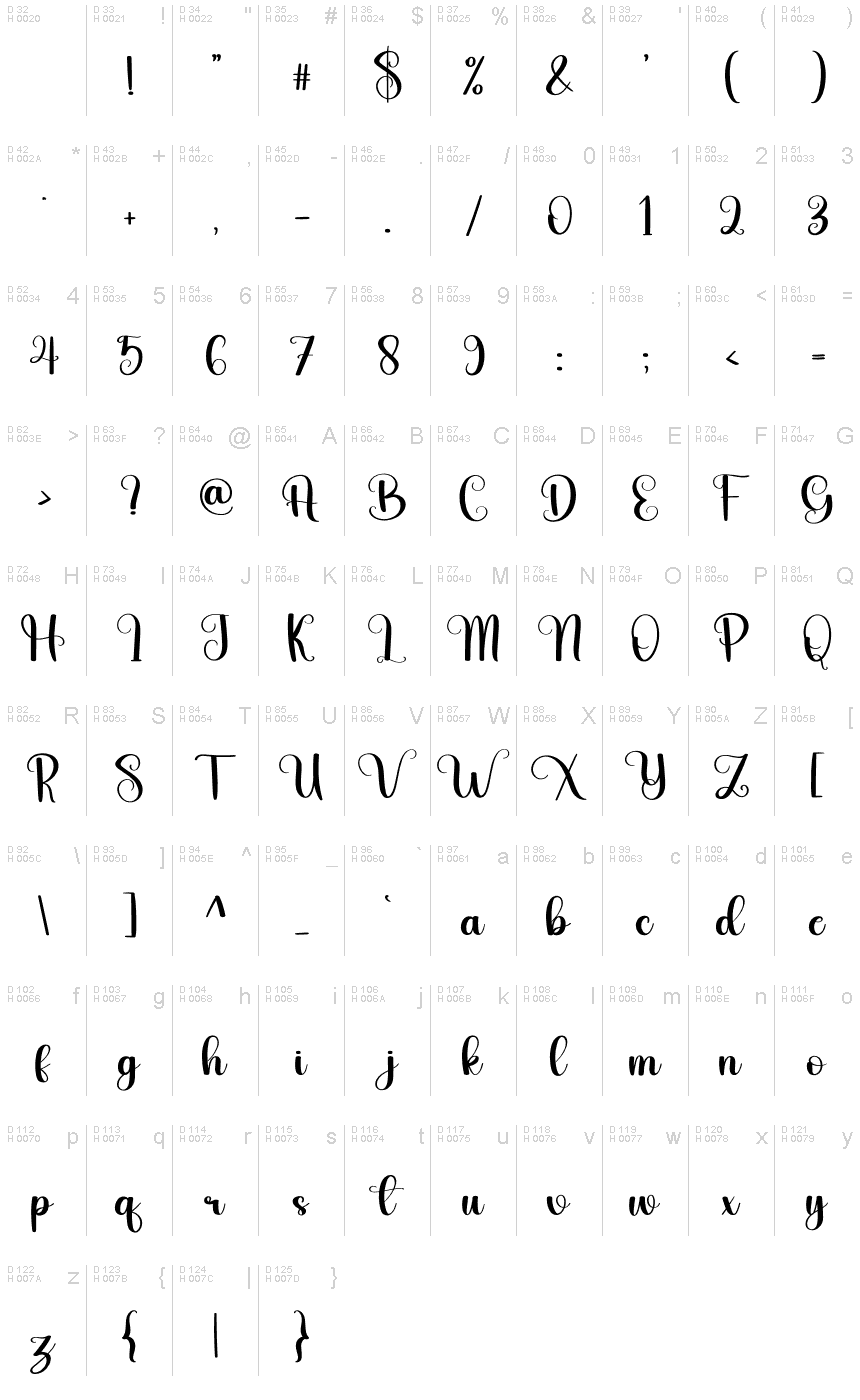
Evolutione
Evolutione, designed by Harlek Studio, is a captivating calligraphy font that exudes elegance and sophistication. Its semi-bold weight adds a touch of modernity to its timeless charm.
With its graceful strokes and fluid curves, Evolutione is perfect for wedding invitations, luxury branding, and fashion editorials. This versatile font brings a sense of refinement to any project it graces, whether it's a high-end restaurant menu or an upscale magazine spread.
Let Evolutione elevate your designs with its exquisite calligraphic style and undeniable allure.